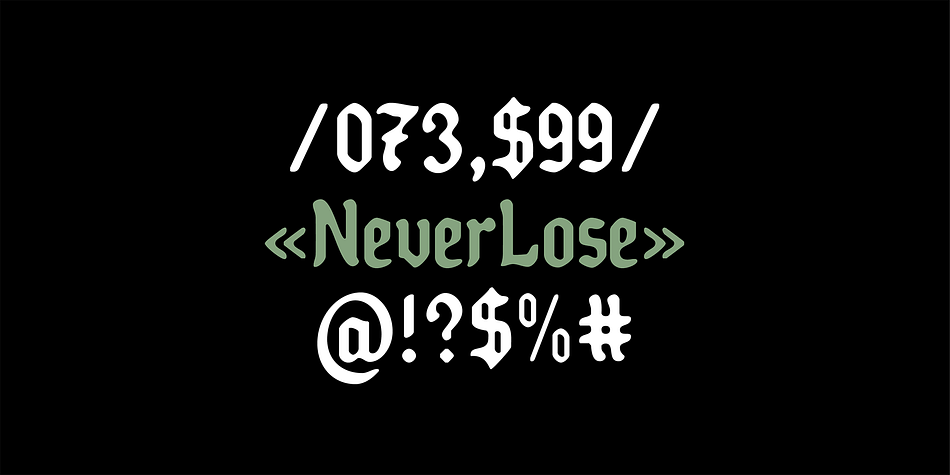
Arta Machine
Designed by Hamam Jauhari, Arta Machine is a blackletter font family. This typeface has two styles and was published by Wacaksara Co.
Introducing Arta Machine font, a modern blackletter typeface that skillfully combines classic elegance with contemporary flair. This versatile font family offers two unique styles: ‘clean’ for a sleek and refined appearance, and ‘stamp’ for a bold and rugged aesthetic.